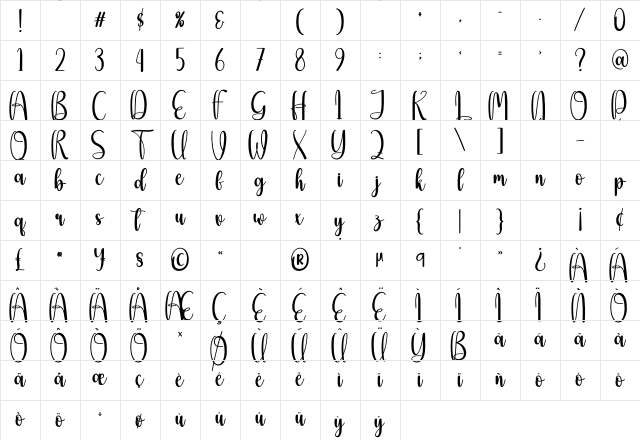
Beautybee Regular Free Font
Beautybee Regular
Design Context for Beautybee
Beautybee is a composed and adaptable typeface that performs quietly and consistently across a wide range of design contexts.